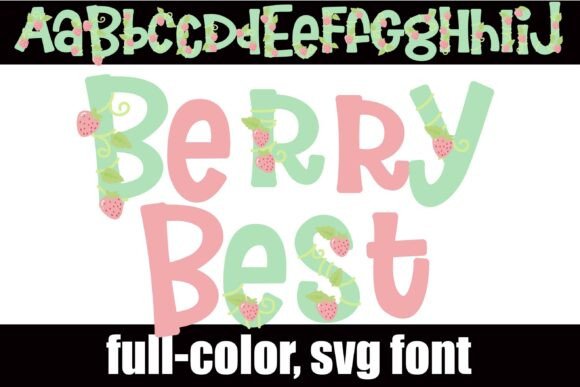
The Sweetest Design Asset in the Patch: A Deep Dive into Berry Best Pastel
I’ll never forget the design project that led me to discover Berry Best Pastel. I was working on a branding campaign for a local organic farm, and I needed a font that would capture the essence of their fresh, sustainable produce. As I scrolled through font after font, nothing seemed quite right – until I stumbled upon Berry Best Pastel. Its charming, hand-drawn letterforms and adorable strawberry vines instantly transported me to a sunny day in the garden. I knew right then and there that I had found the perfect fit.
A Honest Review: The Good, the Great, and the Quirks
• ✨ The unique blend of strawberry-pink and mint-green hues that gives Berry Best Pastel its refreshing and playful vibe
• ✅ The delicate, hand-drawn strawberry vines that add a touch of whimsy and personality to each character
• ✅ The font’s versatility – it works beautifully for organic farmers’ market branding, children’s boutique graphics, fresh fruit packaging, and cheerful spring stationery layouts
• ✅ The sense of professional design intelligence and legendary cottagecore warmth that Berry Best Pastel brings to visual assets
While Berry Best Pastel is an amazing font, there are a few things to keep in mind:
• ⚠️ The font’s playful, handwritten nature may not be suitable for more formal or corporate design projects
• 🤔 Some users may find that the font’s thick, friendly letterforms can be a bit challenging to read at smaller sizes
Berry Best Pastel was inspired by the simple joys of a sunny day in the garden. The font’s designer, a lover of nature and all things whimsical, wanted to capture the essence of a fresh, organic world in a beautiful and functional way. The result is a font that’s both playful and sophisticated, perfect for designers who want to add a touch of personality to their work.
What is Berry Best Pastel? Berry Best Pastel is a charming full-color SVG font inspired by a sunny day in the garden. It features thick, friendly letterforms rendered in a refreshing mix of strawberry-pink and mint-green hues.
What kind of projects is Berry Best Pastel suitable for? Berry Best Pastel is perfect for organic farmers’ market branding, children’s boutique graphics, fresh fruit packaging, and cheerful spring stationery layouts.